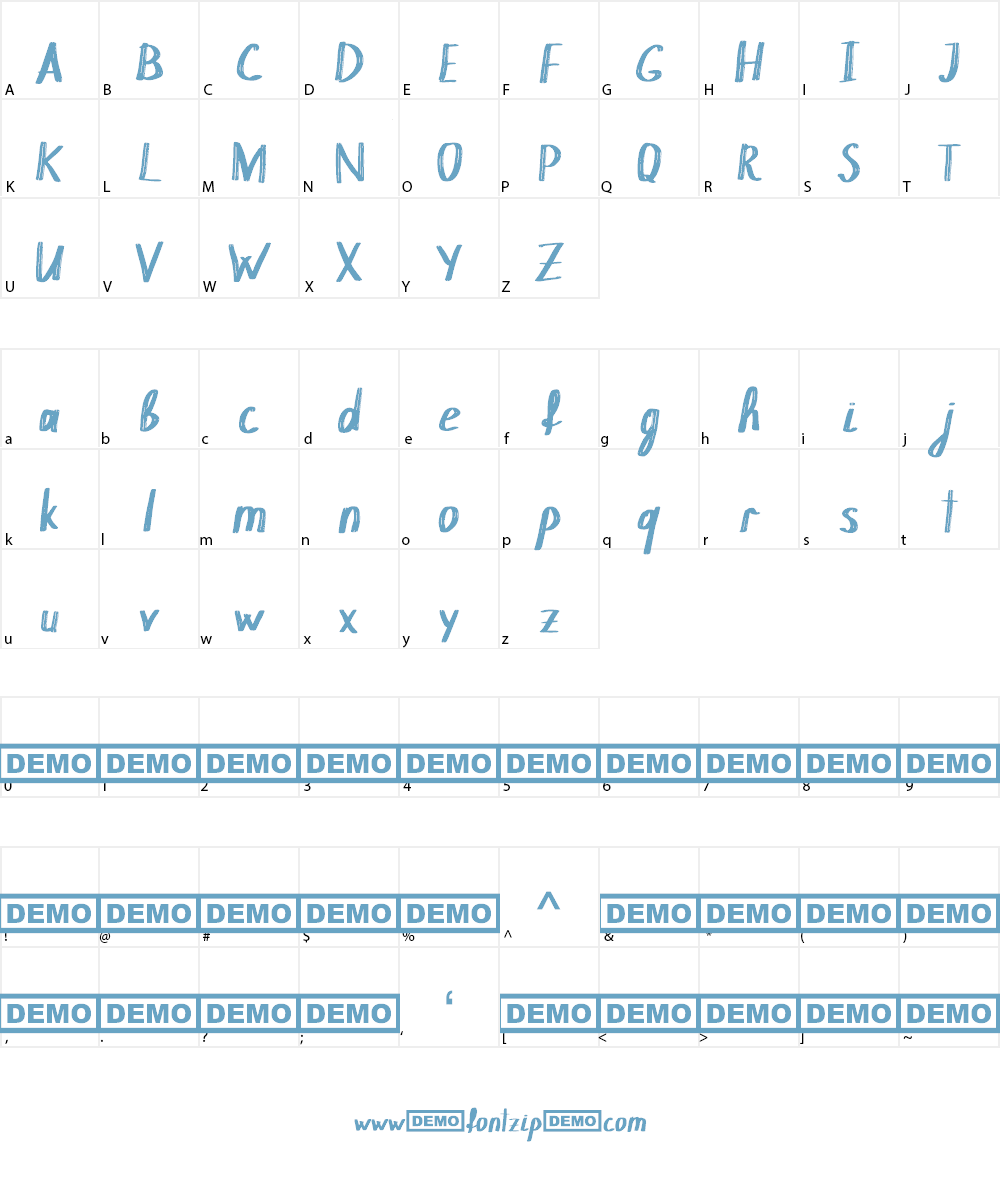
Introducing you Chokle - one of the funkiest typefaces you've ever seen! Perfect for logo's, cards, invites, lettering and other designs. Full version of Chokle comes with Uppercase, Lowercase and Standard Punctuation.